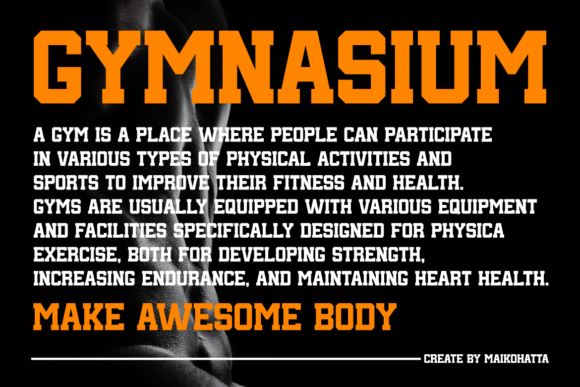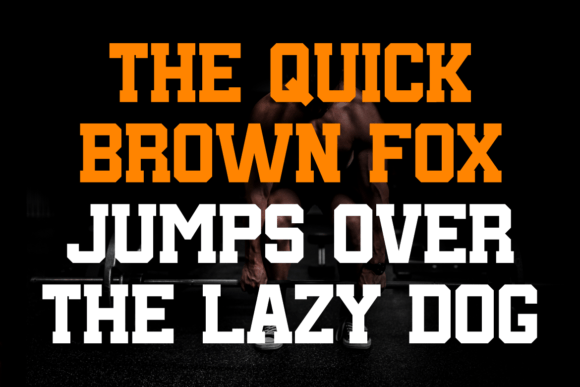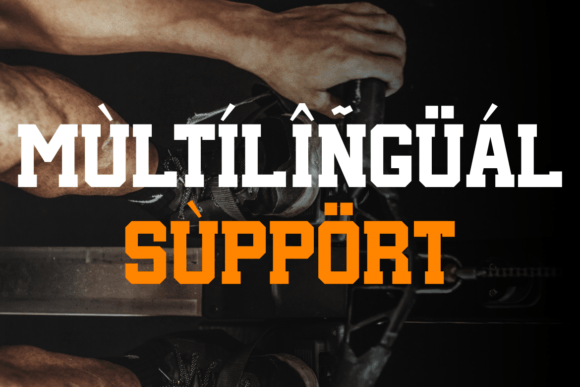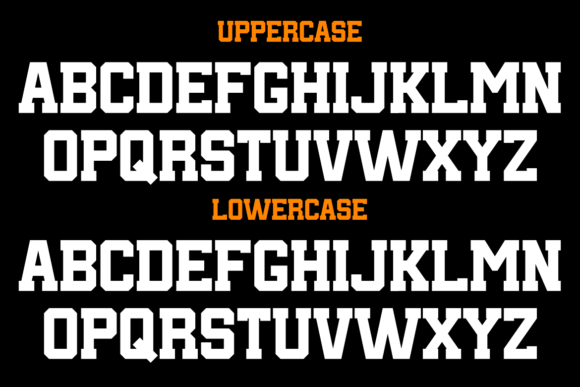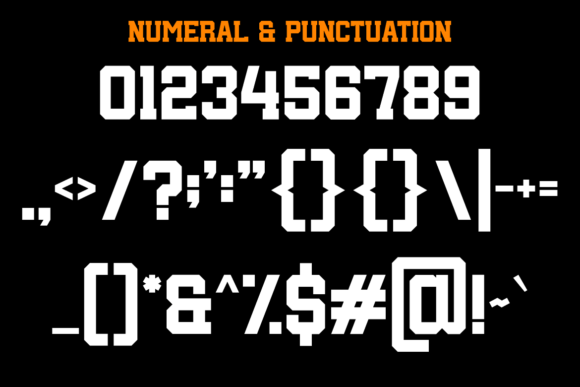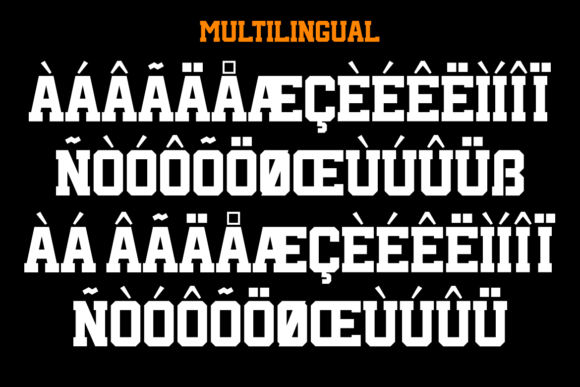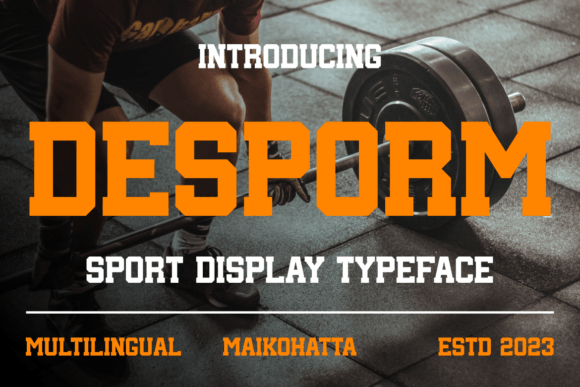
Desporm Font: The Ultimate Typeface for Sports Branding
In the world of sports, branding plays a crucial role in setting teams, companies, and events apart from the competition. A well-designed font can be a game-changer in creating a strong visual identity that resonates with fans and athletes alike. This is where Desporm Font comes into play – a dynamic typeface specifically crafted to capture the energy, toughness, and spirit of physical activity and sports.
The Inspiration Behind Desporm Font
Desporm Font was designed with a clear vision in mind: to reflect the dynamic spirit, energy, and toughness often associated with physical activity and sports. The creators aimed to craft a font that would not only convey a sense of movement and action but also embody the competitive nature of sports. The result is a typeface that exudes confidence, strength, and a winning attitude.
Key Features of Desporm Font
Desporm Font boasts several key features that make it an ideal choice for sports branding:
- Dynamic and Bold: Desporm Font features bold lines, sharp edges, and a dynamic flow that gives it a sense of movement and energy.
- Versatile: The font is designed to be versatile, making it suitable for use in various contexts, from team logos and jerseys to event branding and marketing materials.
- Legible: Despite its bold and dynamic nature, Desporm Font remains highly legible, ensuring that your message gets across clearly and effectively.
Use Cases for Desporm Font
Desporm Font is perfect for a wide range of applications in the sports industry, including:
- Sports Team Branding: Create a strong visual identity for your team with Desporm Font, perfect for logos, jerseys, and merchandise.
- Sports Company Branding: Elevate your sports company’s brand with a professional and dynamic typeface that conveys energy and toughness.
- Major Sporting Events: Make a statement with Desporm Font at your next major sporting event, from Olympics to marathons and beyond.
Why Choose Desporm Font?
With so many fonts available, why choose Desporm Font for your sports branding needs? Here are just a few compelling reasons:
- Unique Identity: Desporm Font helps you create a unique visual identity that sets you apart from the competition.
- Emotional Connection: The font’s dynamic and bold nature helps create an emotional connection with your audience, fostering a sense of excitement and energy.
- Professionalism: Desporm Font conveys a sense of professionalism and expertise, essential for building trust with your audience.
Tips for Using Desporm Font
To get the most out of Desporm Font, here are some expert tips:
- Pair with Neutral Colors: Balance out the boldness of Desporm Font by pairing it with neutral colors that complement its dynamic nature.
- Experiment with Effects: Don’t be afraid to experiment with effects like bold outlines, shadows, or textures to add depth and interest to your design.
- Keep it Simple: Remember that sometimes less is more – keep your design simple and focused to let Desporm Font shine.
Desporm Font is a game-changing typeface that embodies the dynamic spirit, energy, and toughness of sports. With its bold and versatile design, it’s perfect for sports teams, companies, and events looking to create a strong visual identity. By choosing Desporm Font, you’ll be able to convey a sense of confidence, strength, and professionalism that resonates with your audience. So why wait? Unlock the full potential of Desporm Font and take your sports branding to the next level!